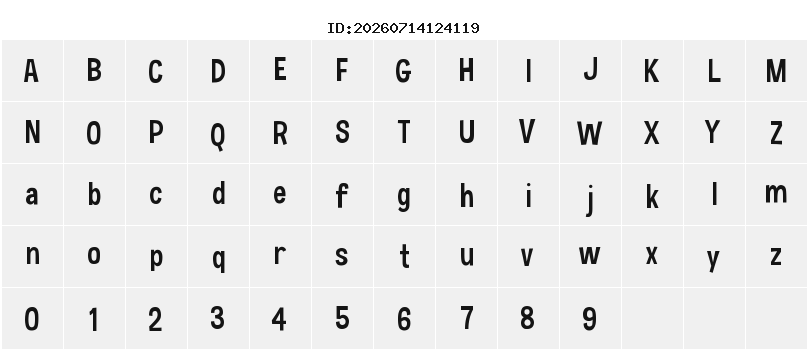
• Font Name: Hauracherell NC
• Full Font Name: Hauracherell NC
• Version: Version 1.00 June 17, 2011, initial release
About Hauracherell NC.ttf
Hauracherell NC.ttf is a modern, elegant sans-serif font designed for ultimate readability and visual harmony. Perfect for branding, headlines, web design, and print materials.